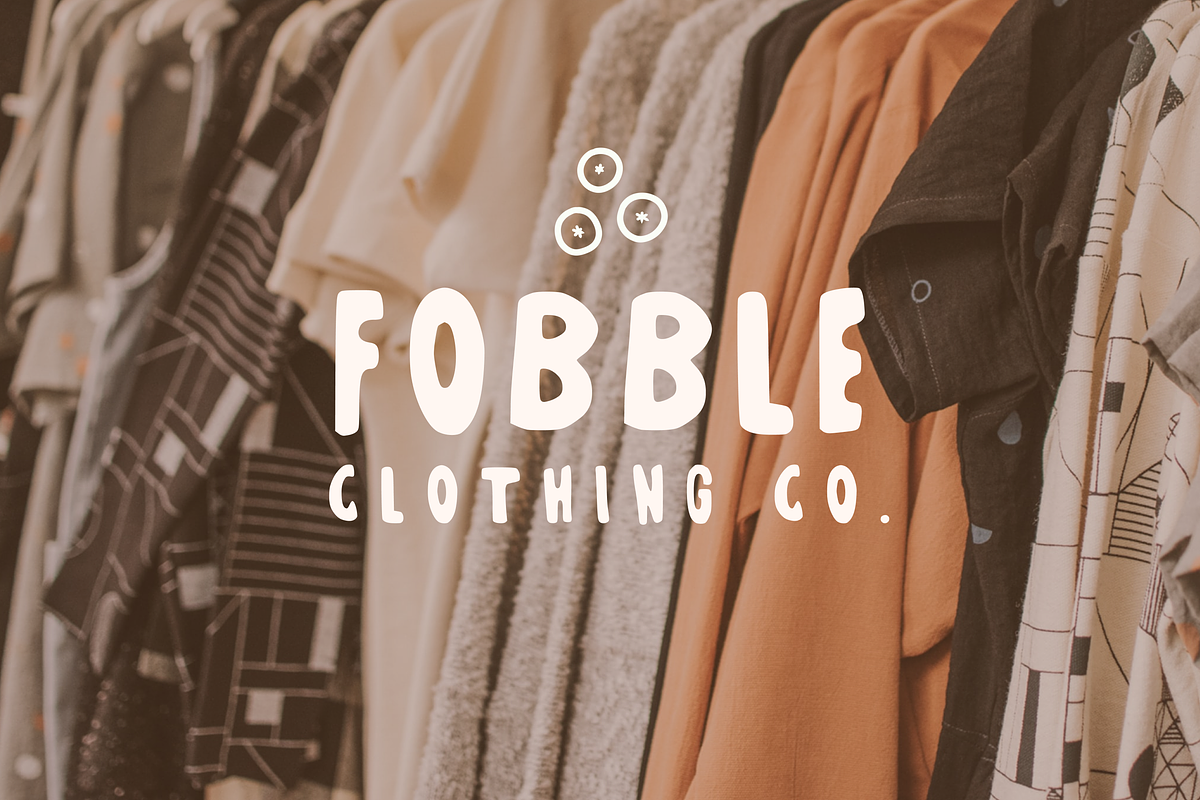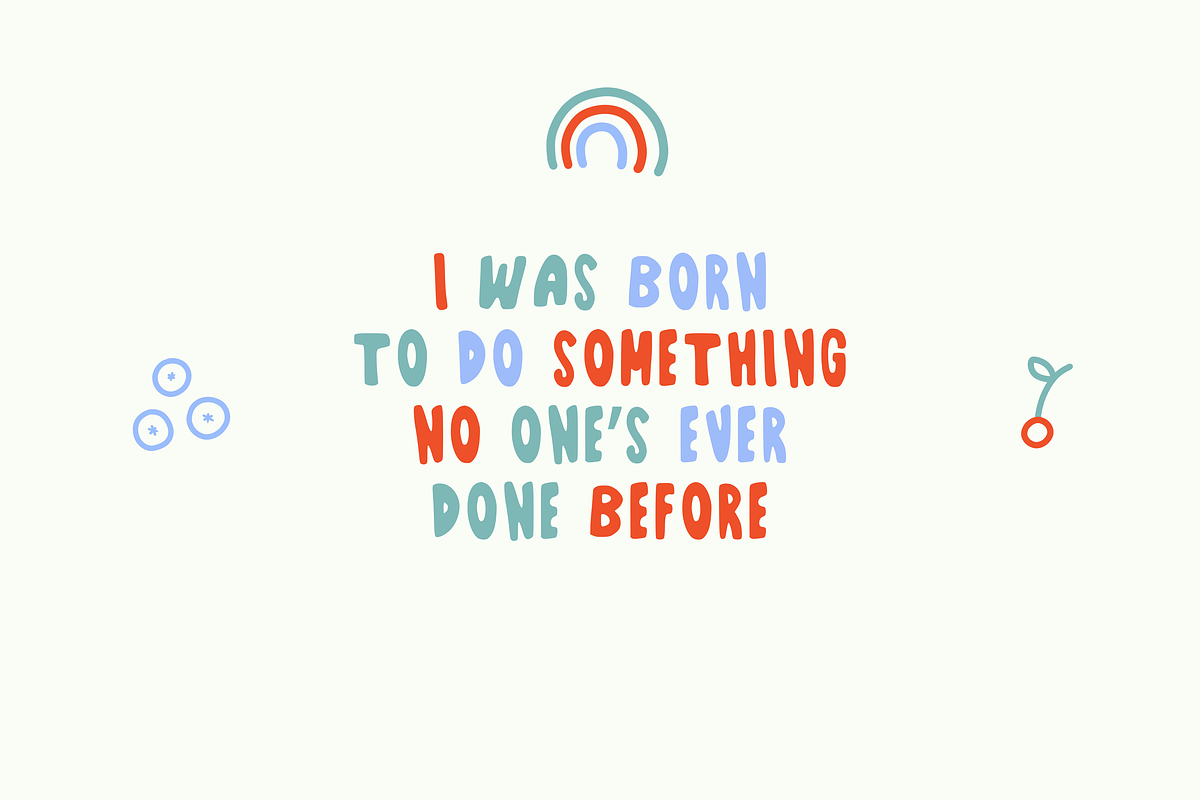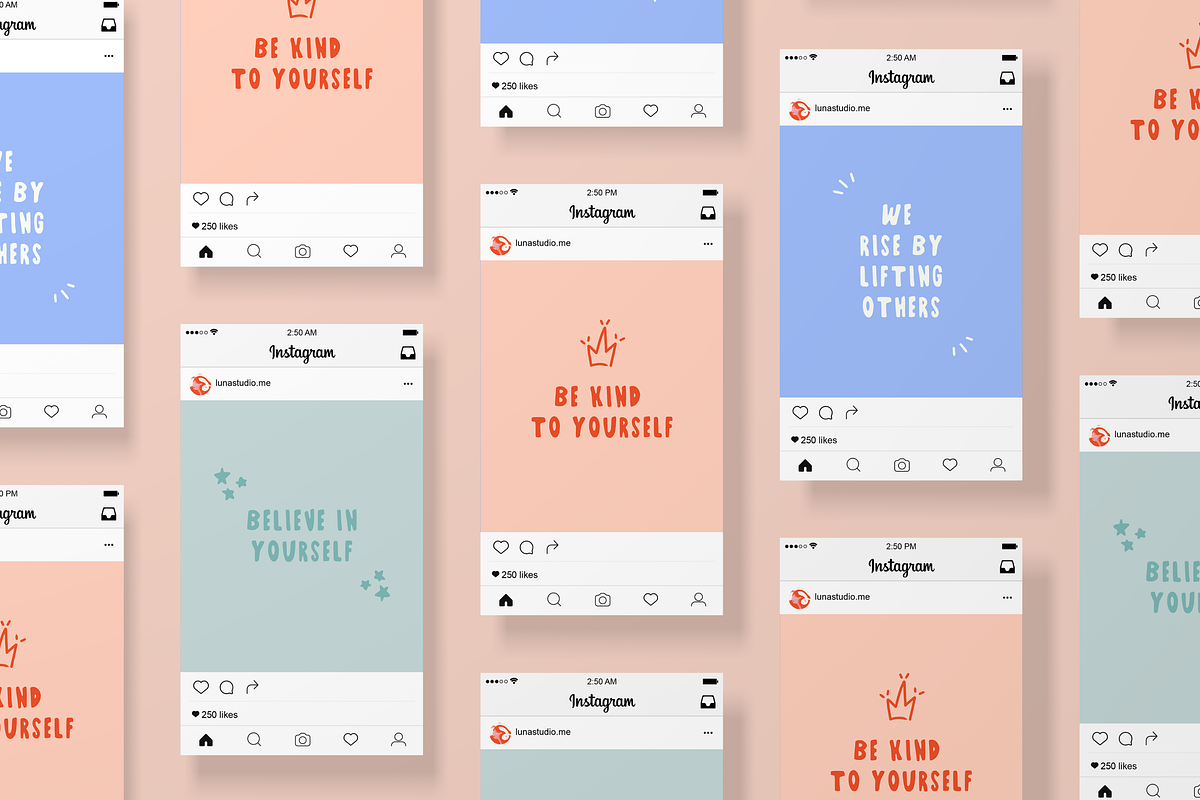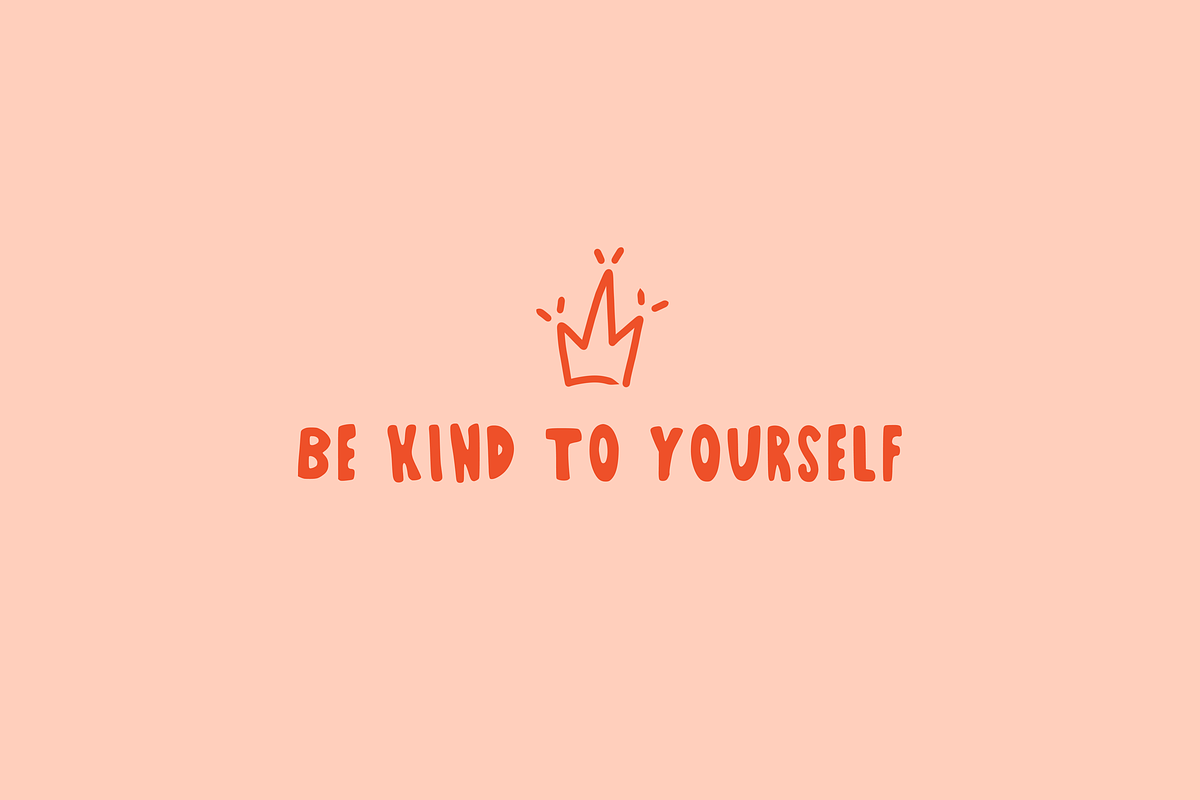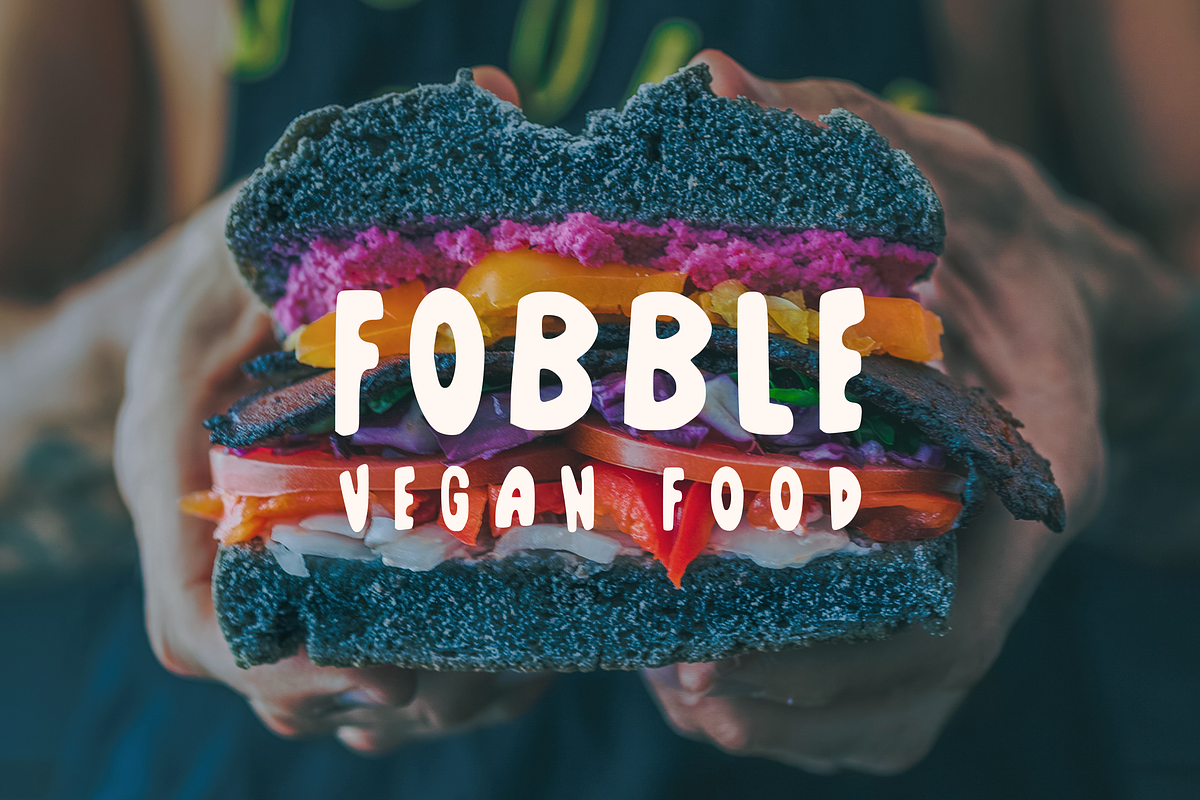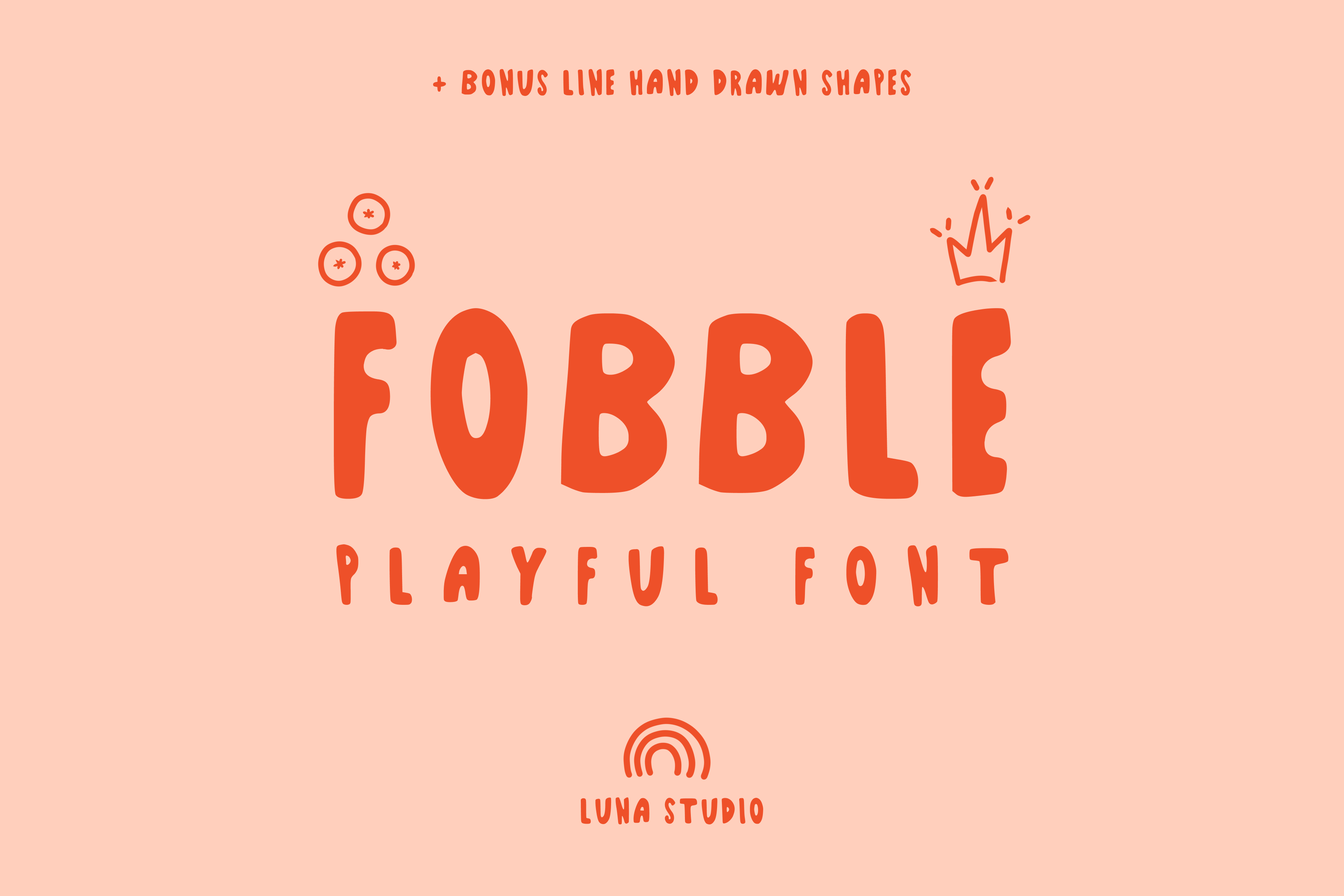
Fobble | Playful Funky Font + Extras
Fobble is a unique hand-drawn bold, playful font!
Each letter has been carefully crafted by hand.
+EXTRA 9 hand-drawn line shapes!
This display typeface is perfect for:
- Headings
- Greeting cards
- Packaging
- Quotes
- Branding
- Logo
- Uppercases
- Other glyphs